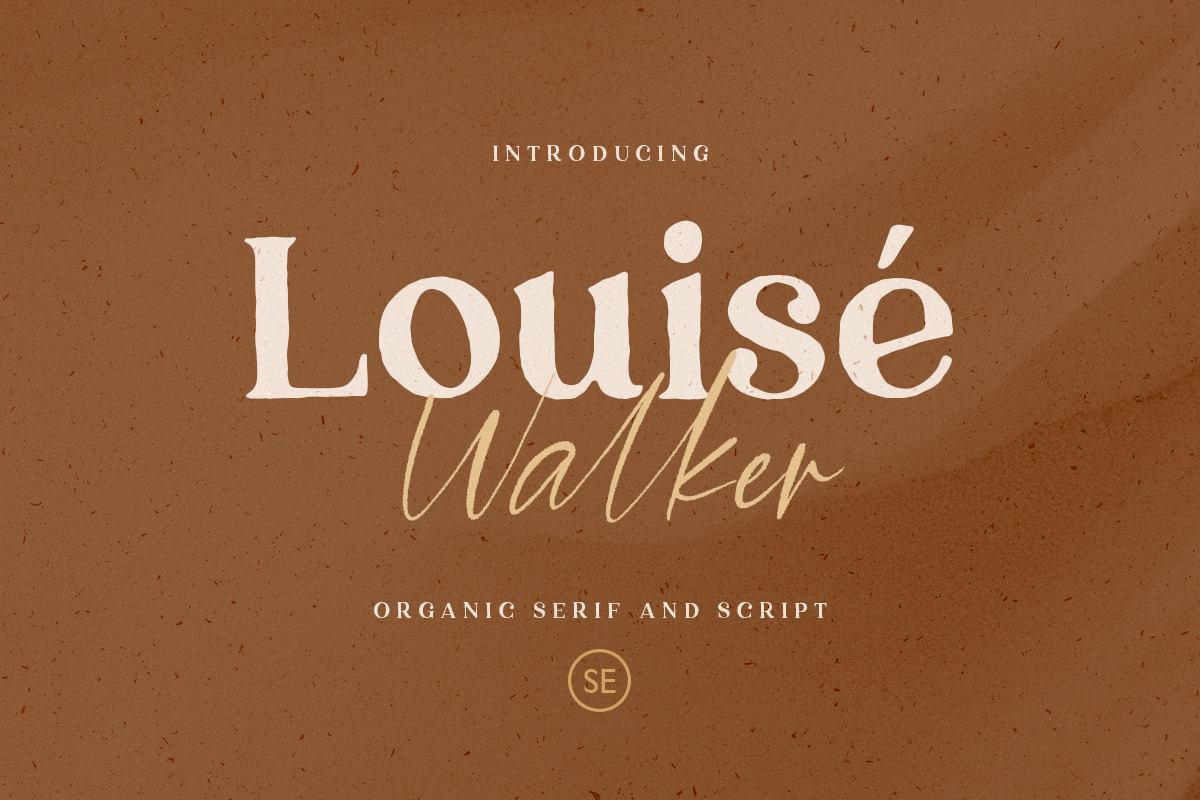
Louise Walker – Font Duo Free Download is a beautifully balanced pair of fonts combining a sleek serif with a graceful script. This duo is perfect for elegant branding, wedding invitations, logo design, feminine product packaging, social media graphics, and editorial layouts.
The serif font brings structure and modern refinement, while the script adds a handwritten, romantic touch—making this pairing both versatile and visually engaging. Louise Walker includes ligatures, stylistic alternates, punctuation, multilingual support, and works seamlessly on both Mac and Windows platforms.